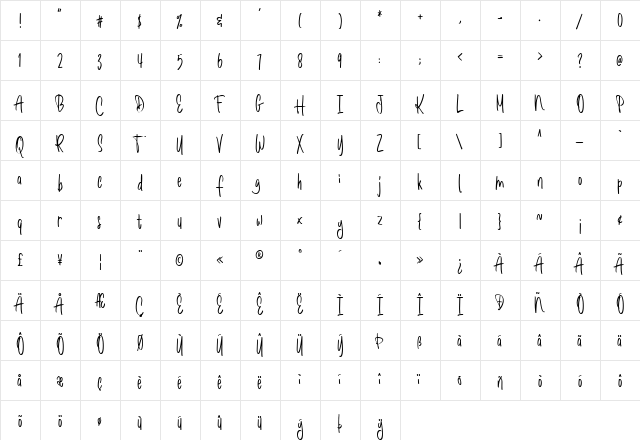
Romantick Regular
Design Context for Romantick Typeface
Romantick is a composed and adaptable typeface that performs quietly and consistently across a wide range of design contexts.
Pro Tip: Pair Romantick with a font of contrasting weight or personality to build a more expressive typographic hierarchy.